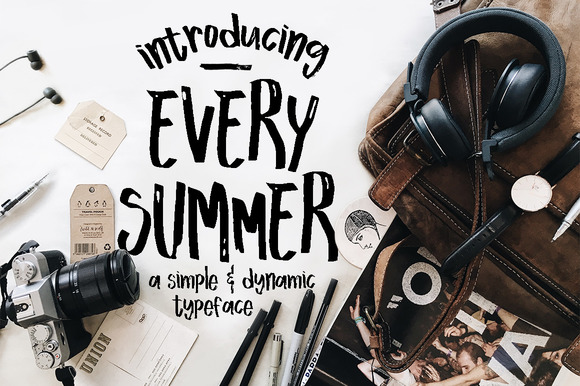
Every Summer Font
Prepare to dive headfirst into the vibrant world of Every Summer Font! This exquisite script font, meticulously crafted by the talented Blue Robin Design Shop, carries the essence of summer within every stroke. Its energetic and breezy style, inspired by the warmth of the season, breathes life into your creative projects, allowing your words to dance with a sense of freedom and joy.
Immerse yourself in the artistry of Every Summer Font, a captivating blend of brush and marker techniques. The bold, expressive strokes evoke the playful energy of summer days, while the delicate, flowing lines add a touch of elegance. Whether you're designing social media posts, crafting heartfelt invitations, or creating eye-catching logos, Every Summer Font will infuse your designs with a touch of summer magic.
With Every Summer Font, you'll unlock a treasure trove of creative possibilities. Its versatility extends across a wide spectrum of design projects. Allow your imagination to flourish as you create whimsical posters that capture the spirit of summer festivals, design personalized greeting cards that warm the hearts of your loved ones, or fashion unique branding materials that exude a summery charm. The possibilities are endless, waiting for you to explore.
Every Summer Font is more than just a font; it's an experience. It's the embodiment of summer's essence, translated into a digital masterpiece. Its cheerful spirit and playful nature will uplift your designs, leaving a trail of smiles and warmth in its wake. Embrace the vibrant energy of summer with Every Summer Font and embark on a creative journey filled with joy, laughter, and endless possibilities.